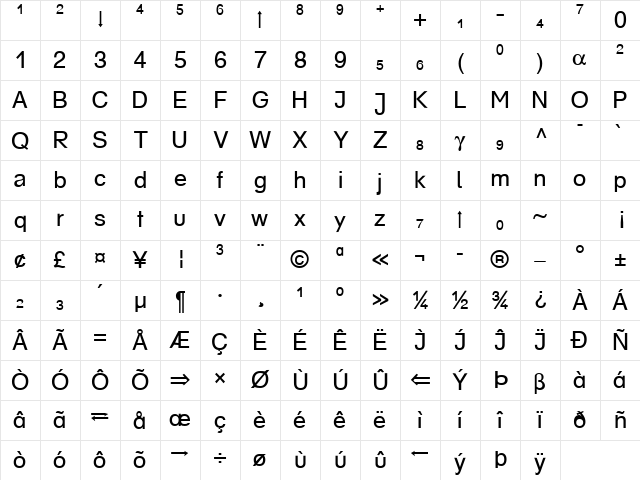
Chemistry Becker Normal
Design Context for Chemistry Becker
Chemistry Becker is a composed and adaptable typeface that performs quietly and consistently across a wide range of design contexts.
Pro Tip: Use Chemistry Becker in both headline and body roles to test its range before committing to a single application.